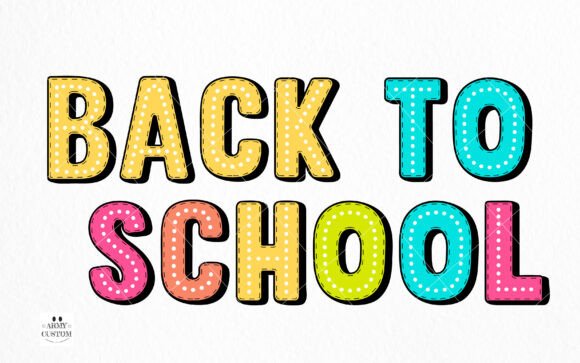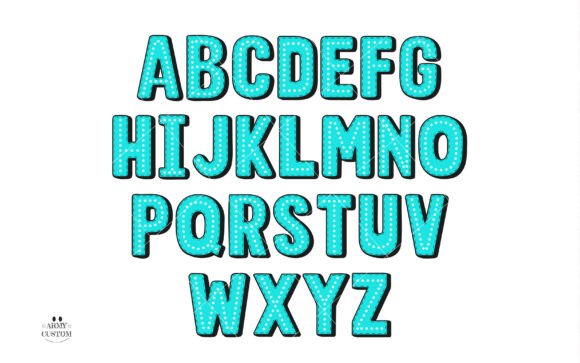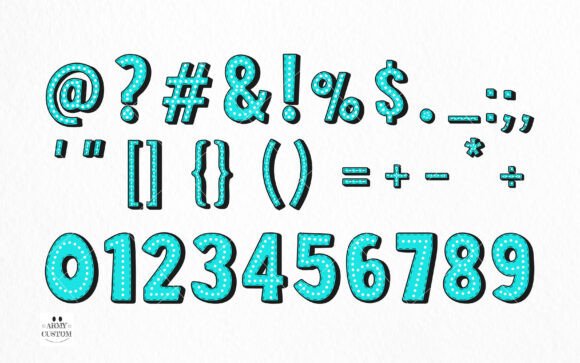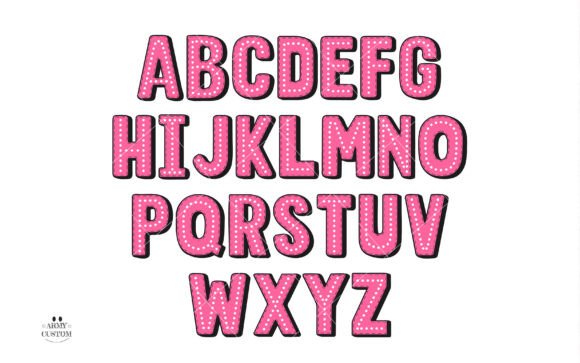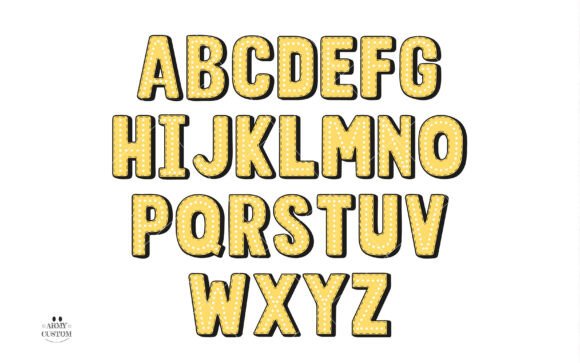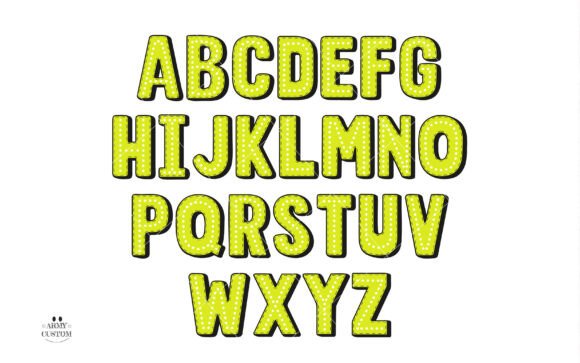
Introducing Dotted 3D Rainbow Font: Add a Splash of Whimsy to Your Designs
Are you looking for a font that can add a dash of playfulness and charm to your creative projects? Look no further than the Dotted 3D Rainbow font. This enchanting font is a perfect mix of whimsy and vibrancy, designed to infuse your designs with an element of joy and fun. In this article, we’ll explore the features and benefits of the Dotted 3D Rainbow font, and how you can use it to take your designs to the next level.
A Rainbow of Possibilities
The Dotted 3D Rainbow font is a stunning color font that paints a canvas of creativity that leaps off the page. With its unique dotted design and 3D effect, this font is sure to grab attention and add a touch of magic to any project. Whether you’re working on a cute-theme endeavor, a children’s book, or a fun craft project, this font is ideal for injecting charm and personality into your design.
Compatibility and Uses
Bringing Your Designs to Life
With the Dotted 3D Rainbow font, you can add a new dimension to your designs. The font’s 3D effect and vibrant colors make it perfect for creating eye-catching titles, headings, and text elements. You can use it to create stunning posters, flyers, brochures, and social media graphics that are sure to grab attention.
Crafters and DIY enthusiasts can use the black version of the font to create beautiful crafts, such as paper cutouts, vinyl decals, and iron-on designs. The font’s dotted design and 3D effect make it perfect for creating intricate and detailed designs that are sure to impress.
Tips and Tricks for Using Dotted 3D Rainbow Font
Here are some tips and tricks for getting the most out of the Dotted 3D Rainbow font:
- Experiment with different colors and combinations to create unique and eye-catching designs.
- Use the font to create stunning titles and headings that grab attention.
- Mix and match the font with other fonts and design elements to create a unique and personalized look.
- Don’t be afraid to get creative and try new things – the Dotted 3D Rainbow font is all about experimentation and fun!
In conclusion, the Dotted 3D Rainbow font is a versatile and fun font that can add a touch of whimsy and charm to any design project. With its unique dotted design and 3D effect, this font is perfect for crafters, designers, and DIY enthusiasts who want to create eye-catching and personalized designs.
Whether you’re working on a cute-theme endeavor or a fun craft project, the Dotted 3D Rainbow font is sure to bring a splash of color and creativity to your design. So why not give it a try and see what amazing designs you can create?